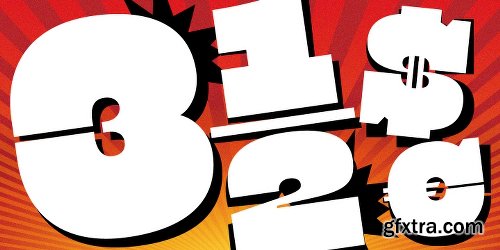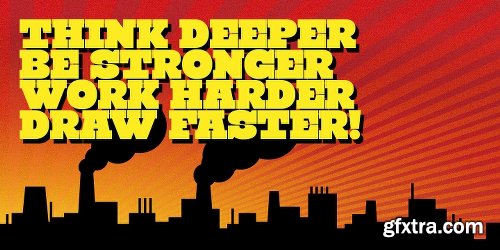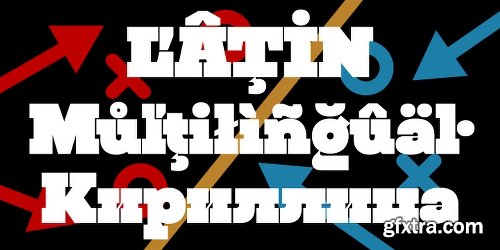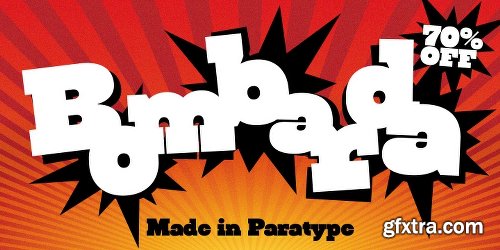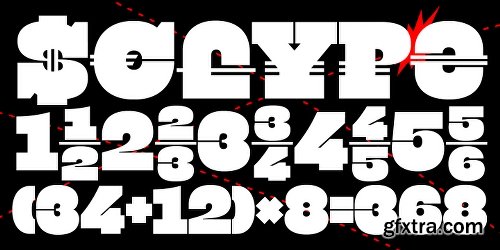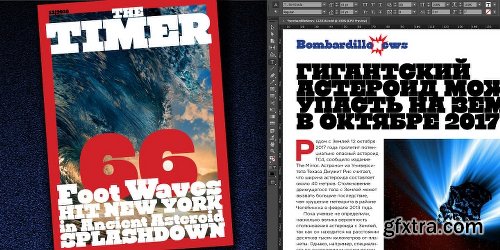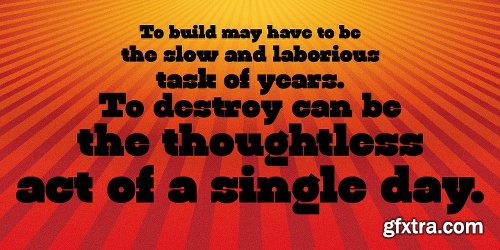
Bombarda Font
Bombarda is a big gun, and surely a font named like that must have specific dimensions in order to make the text sound loud and powerful. Due to extreme thickness of basic strokes and of maximum possible serifs it will look great on the cover of a comic book, colorful splash screens of computer games as well as other applications where the title should have particular weight. The font was designed by Alexander Lubovenko and released by ParaType in 2016.